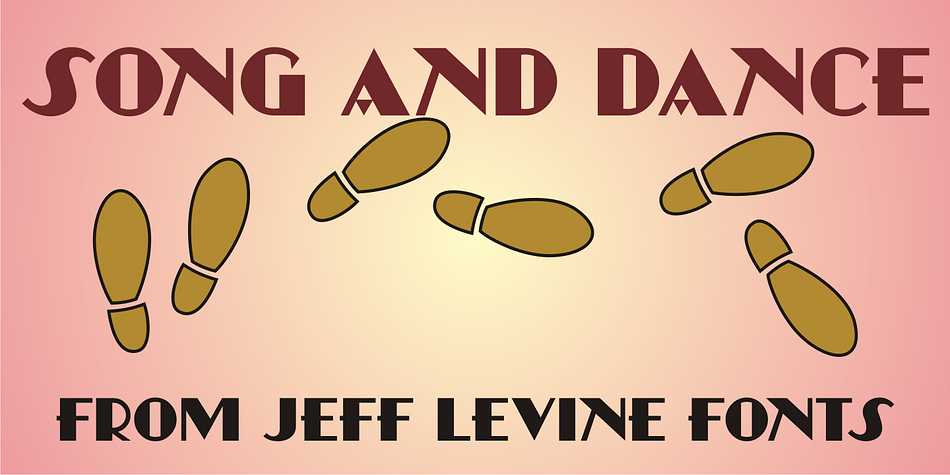
Song and Dance JNL is a art deco font published by Jeff Levine Fonts.
The hand lettering of a piece of 1930s sheet music’s title has once more yielded an interesting take on the popular “thick and thin” lettering of the Art Deco period.